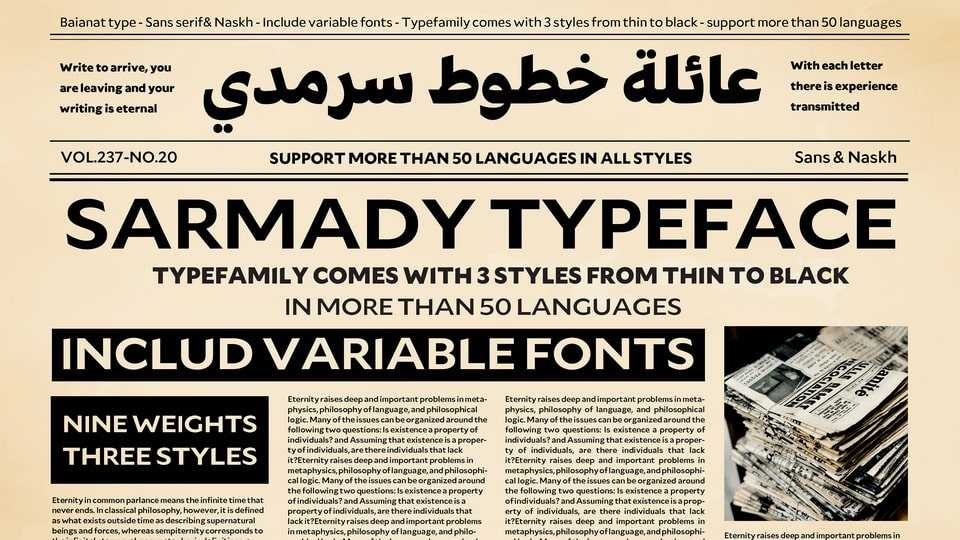
Download Sarmady font, the modern version of the old Arabic script “Naskh”, a robust modern typeface that combines the sans and the “Naskh” into one strong type family. Sarmady can be used for both digital and offline applications.
Designer: Baianat Type ­Design